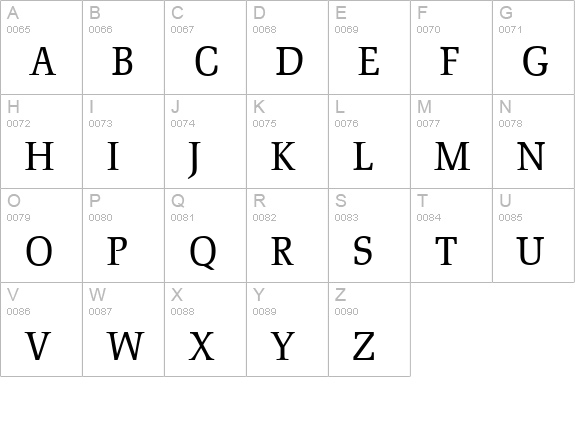
D790-Roman-Regular Font Details
D790-Roman-Regular is the standard, neutral variant in the D790 typeface family \xE2\x80\x94 well suited to general body text, paragraphs, and standard typographic work.
D790-Roman-Regular is a versatile and elegant font that exudes a classic charm with its timeless Roman style. Its clean lines and balanced proportions make it perfect for a wide range of design projects, from invitations to branding materials. The font carries a sense of sophistication and professionalism while maintaining a sense of warmth and approachability. Best of all, D790-Roman-Regular is available for free download at FontsMarket.com. This means that you can easily access this high-quality font and incorporate it into your creative work without any cost. Don't miss out on the opportunity to enhance your designs with the beauty and versatility of D790-Roman-Regular.